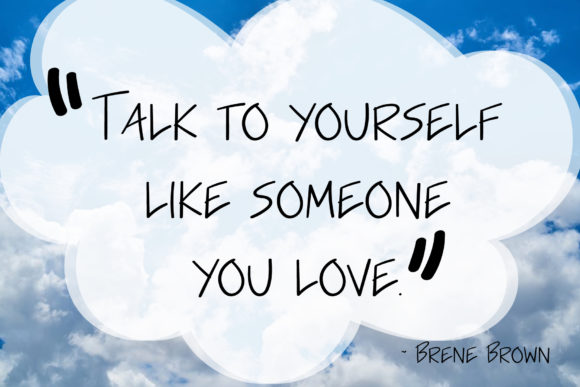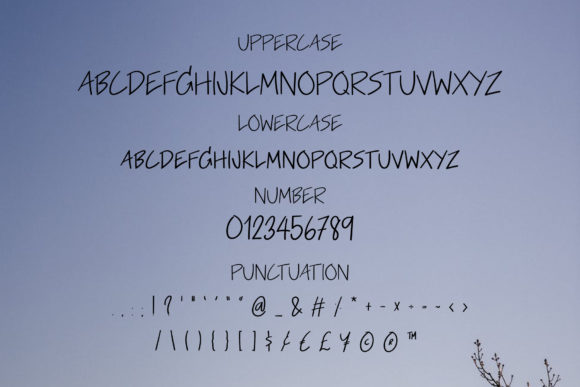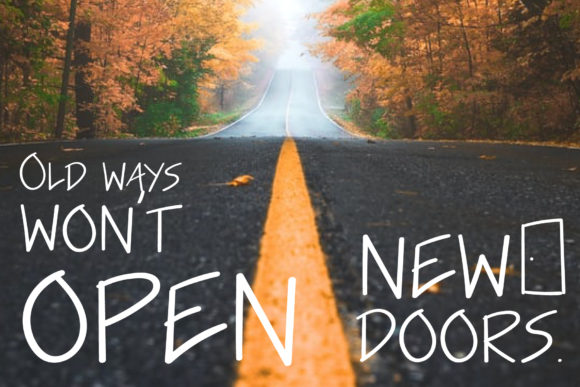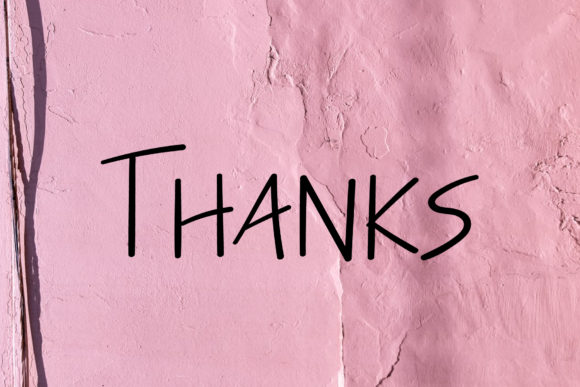
Crazy Love Font
About Crazy Love Font
Crazy Love is a delightful and straightforward handwritten font that exudes a warm and friendly feel. Its simplicity and charm make it an incredibly versatile font that can be used in a wide range of contexts. Whether you’re working on a personal project, designing a logo, or creating social media graphics, Crazy Love will add a touch of sweetness and character to your creative ideas.
With its handwritten style, Crazy Love brings a personal and authentic touch to your designs. The imperfect letterforms and playful strokes give it a whimsical and approachable appeal. This font is perfect for projects that aim to evoke a sense of warmth, joy, and friendliness.
The versatility of Crazy Love allows it to be used in various design applications. From greeting cards and invitations to branding materials and product packaging, this font can enhance your creative ideas and make them stand out. Its simplicity ensures legibility, making it suitable for both headline text and body text.
To make the most of Crazy Love, experiment with different sizes, colors, and styles. Play around with combinations of uppercase and lowercase letters, or mix it with other fonts to create unique typography designs. The friendly feel of Crazy Love can also be complemented by adding illustrations or playful elements to your designs.
Overall, Crazy Love is a sweet and simple handwritten font that brings a friendly and versatile touch to your creative projects. By incorporating it into your designs, you can add a dose of charm and make your ideas stand out with a delightful and approachable aesthetic.